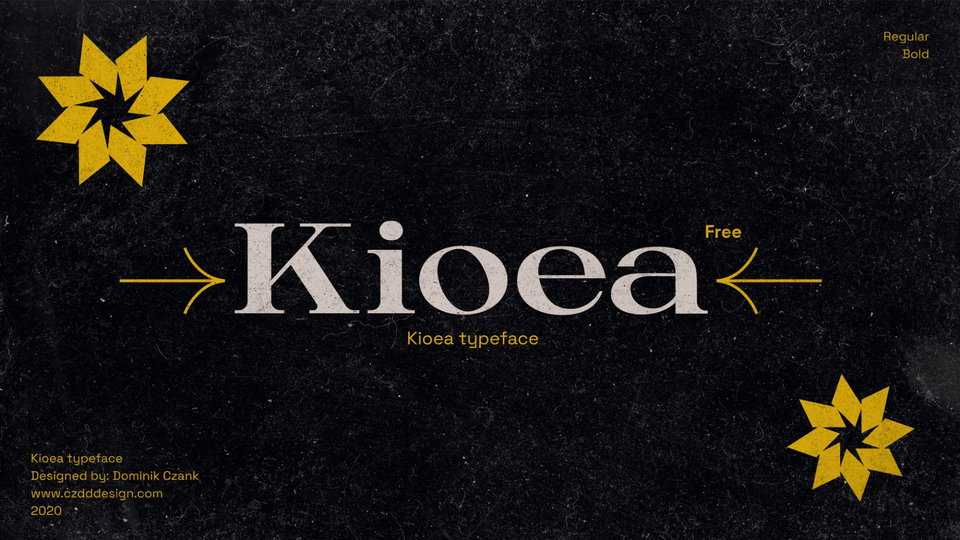
Download Kioea font, a contemporary serif typeface both impressive at display sizes and easily readable in text size. Its dynamic and high contrast shapes make Kioea perfect for logo design or impressive editorial use.
Designer: Dominik Czank